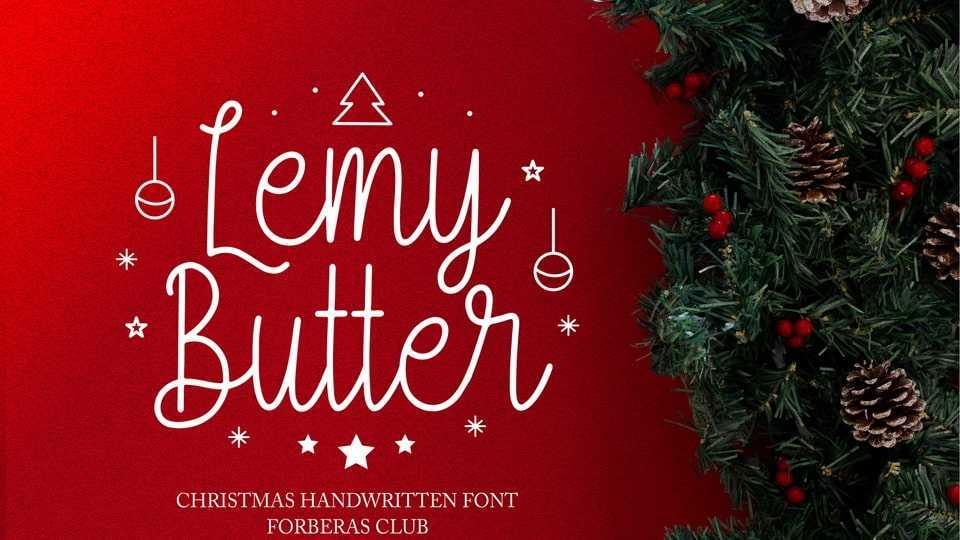
Download Lemy Butter font, a hand lettered script typeface especially designed for notes, quotes, comics and informal projects. Lemy Butter font is perfect for creating modern and chic designs such as logos, packaging, editorials and more.